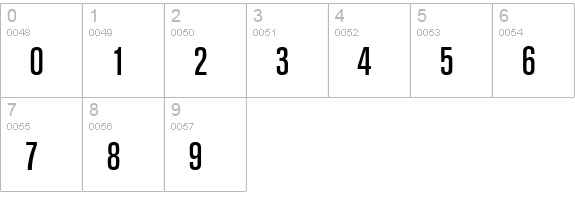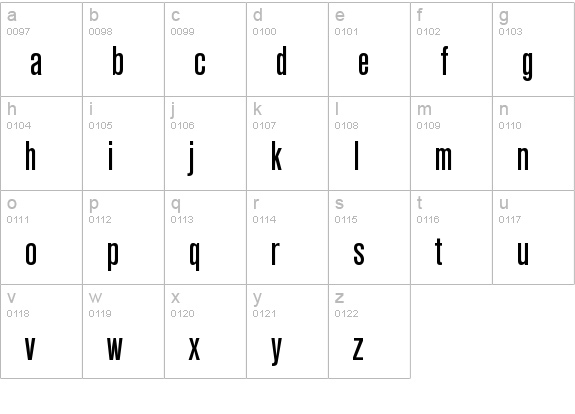
A750-Sans-Cd-Medium-Regular is a balanced, medium-weight variant in the A750 typeface family \xE2\x80\x94 well suited to sub-headlines, navigation, and balanced editorial work.
The A750-Sans-Cd-Medium-Regular font is a versatile and modern typeface that exudes sophistication and elegance. Its clean lines and balanced proportions make it perfect for a wide range of design projects, from branding to editorial layouts. This font strikes the perfect balance between professionalism and creativity, making it a great choice for both digital and print applications. And the best part? This fantastic font is available for free download at FontsMarket.com. So, whether you're a designer looking to add a fresh touch to your projects or a business owner in need of a stylish font for your branding, A750-Sans-Cd-Medium-Regular is the perfect choice. Don't miss out on this incredible opportunity to enhance your designs with this stunning typeface. Download it now and see the difference it can make in your projects!